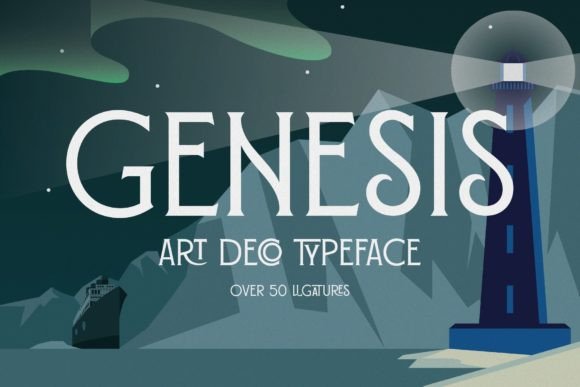
Enter the captivating world of Genesis Font, a serif masterpiece that harmonizes art deco elegance with modern functionality. Crafted by the ingenious minds at HipFonts, Genesis exudes character while maintaining practicality through its restrained style and contemporary construction.
Immerse yourself in the font's diverse ligatures, ensuring versatility and effortless usability. Whether you're a branding expert, a headline aficionado, a magazine connoisseur, or a print and book enthusiast, Genesis is your font soulmate.
Unleash the boundless potential of Genesis in your projects, from branding and headlines to magazines, print, and books. Its versatility knows no bounds, making it the perfect font for any creative endeavor.
Genesis is a PUA-encoded font, allowing you to effortlessly access its entire glyph and swash collection. Open up a world of creative possibilities, where imagination meets elegance.
With Genesis Font, your creative vision will blossom into a breathtaking reality. Let its timeless charm captivate your audience and leave an indelible mark on their minds. Genesis Font: Where art deco meets modernity, where creativity knows no bounds.